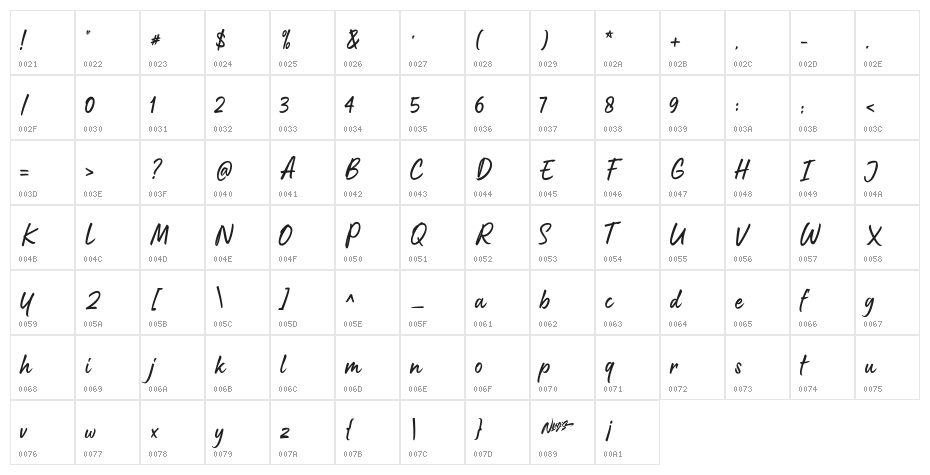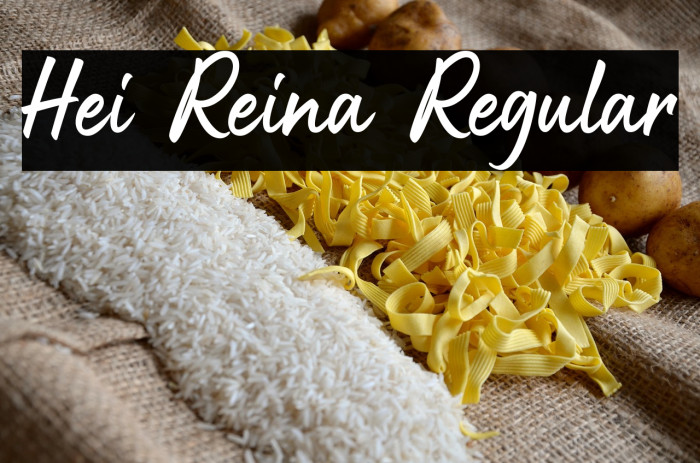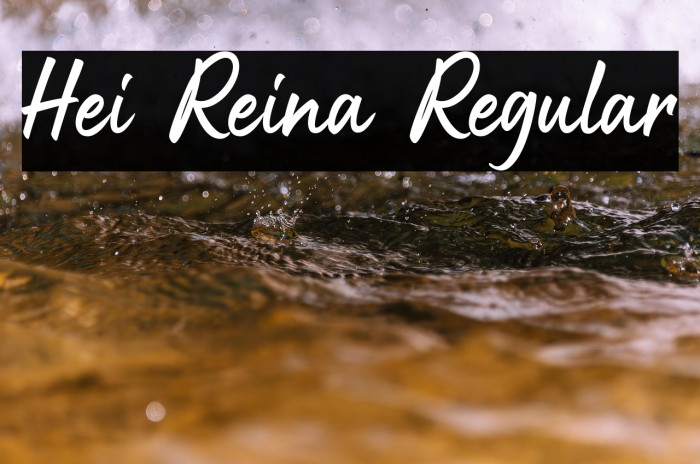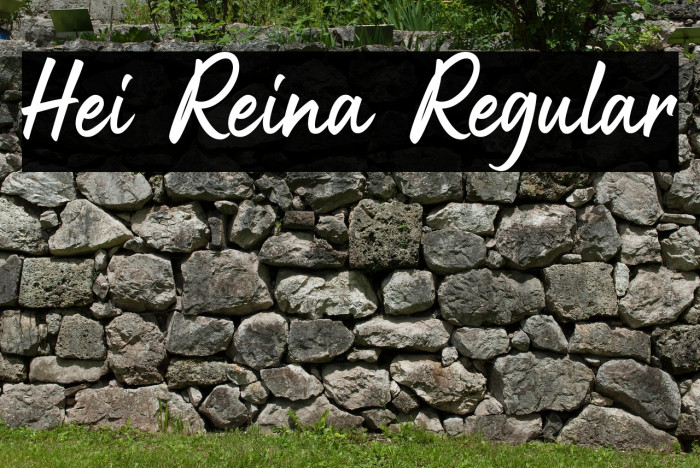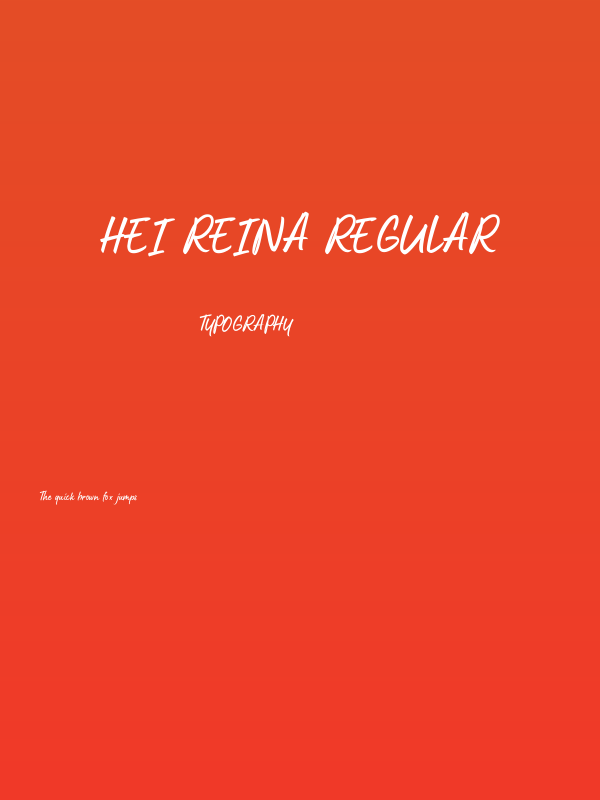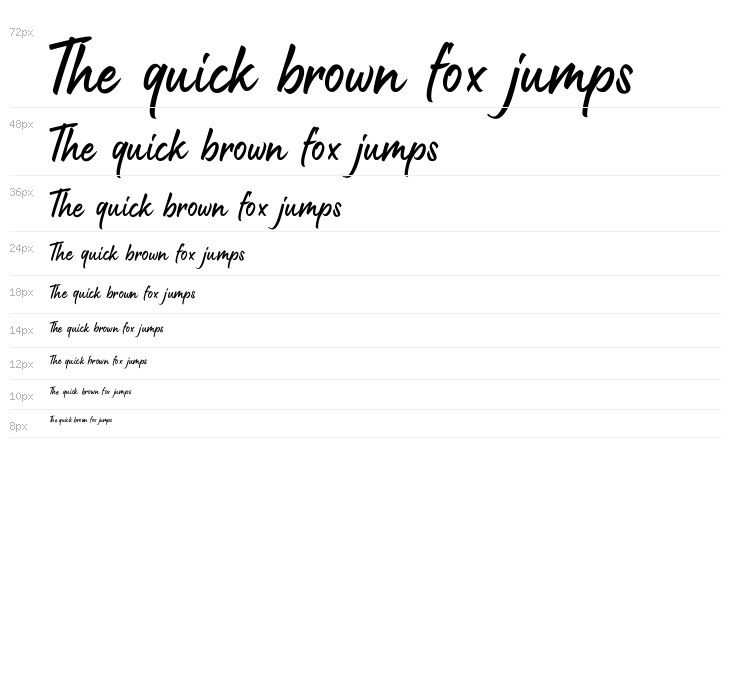
Hei Reina Regular Font
Hei Reina Regular Description
A flowing, handwritten script font with a casual and elegant style, featuring smooth curves and a natural, personal touch.
| Overall Style | Casual, Elegant |
| Use Case | Logos, Invitations, Greeting cards |
| Proposed Projects | Invitations, greeting cards, personal branding. |